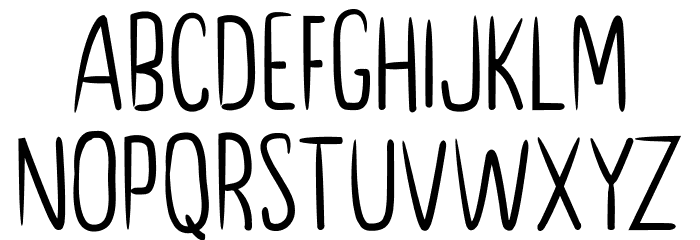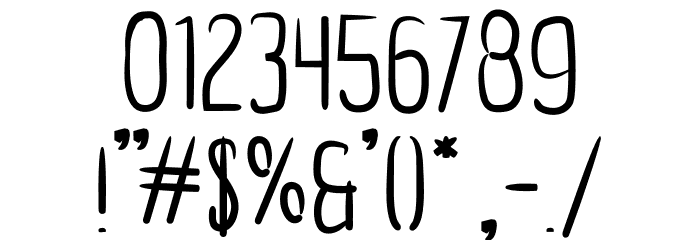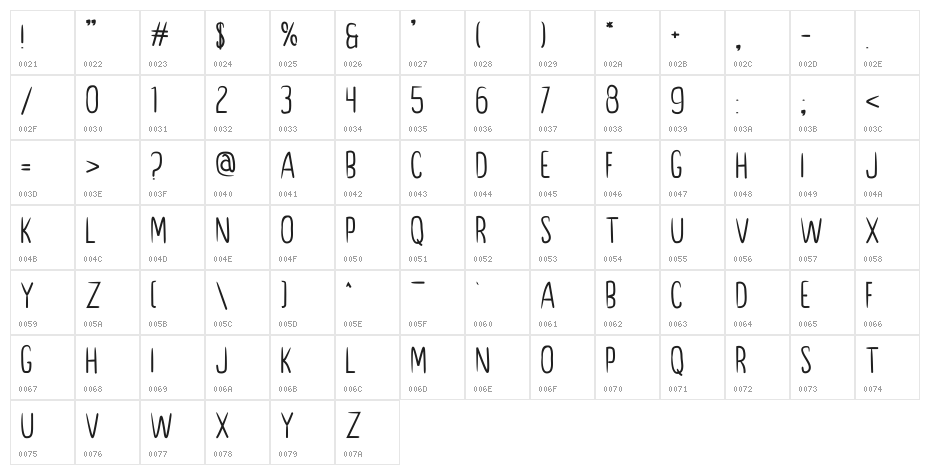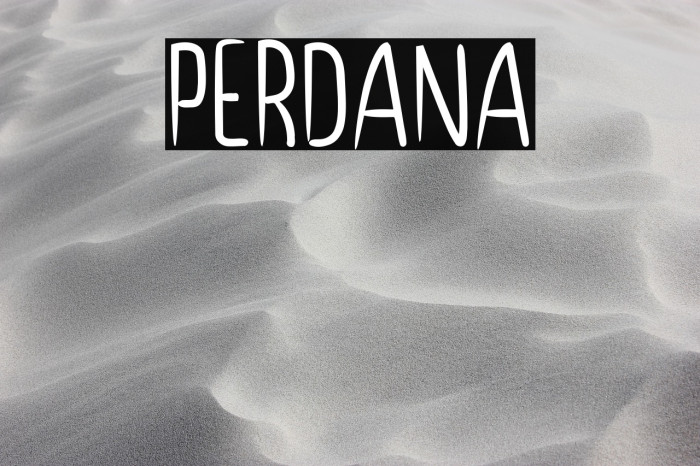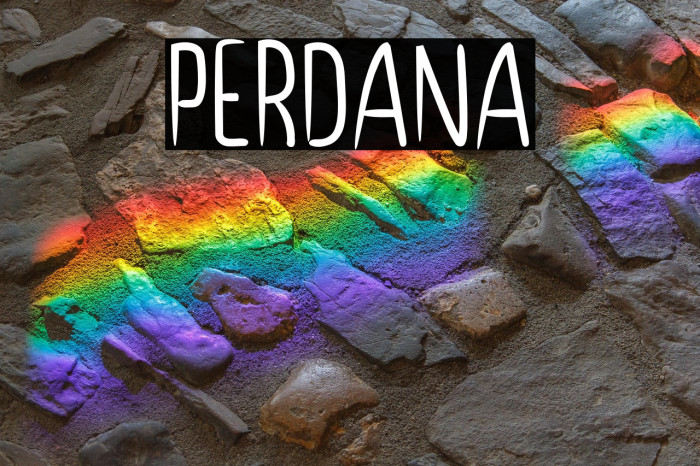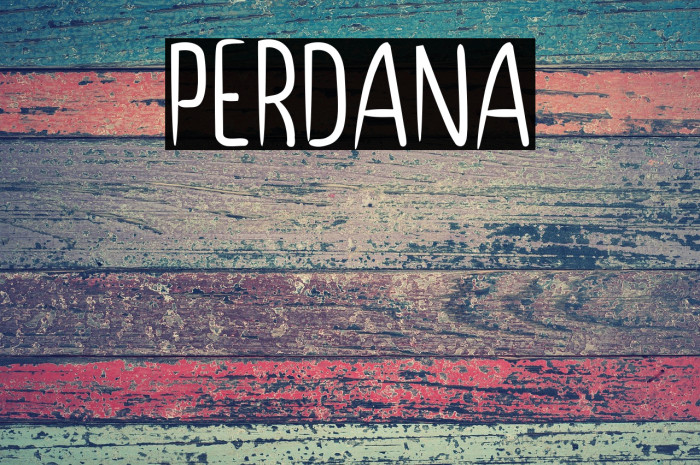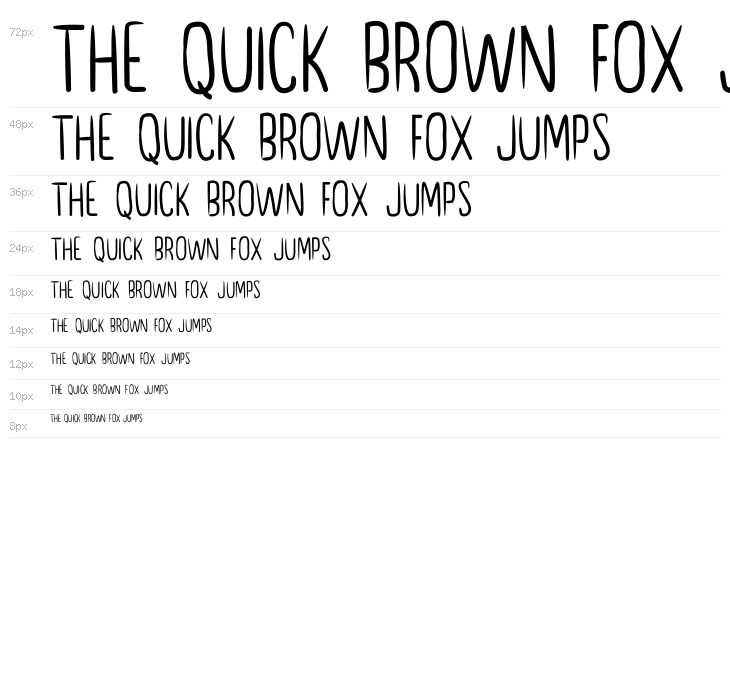
Perdana Font
This font features a playful and casual handwritten style, characterized by its elongated and slightly irregular letterforms. The uppercase and lowercase letters maintain a consistent flow, giving it a cohesive appearance. The numbers and special characters complement the overall style, adding to its versatility. The strokes are smooth and rounded, providing a friendly and approachable feel. This font is ideal for projects that require a personal touch, such as invitations, greeting cards, or creative branding.
A playful and casual handwritten font with elongated, smooth letterforms.
- Proposed Projects: Ideal for invitations, greeting cards, creative branding, and personal projects.
- Overall Style: Casual
- Use Case: Headlines, Logos, Invitations